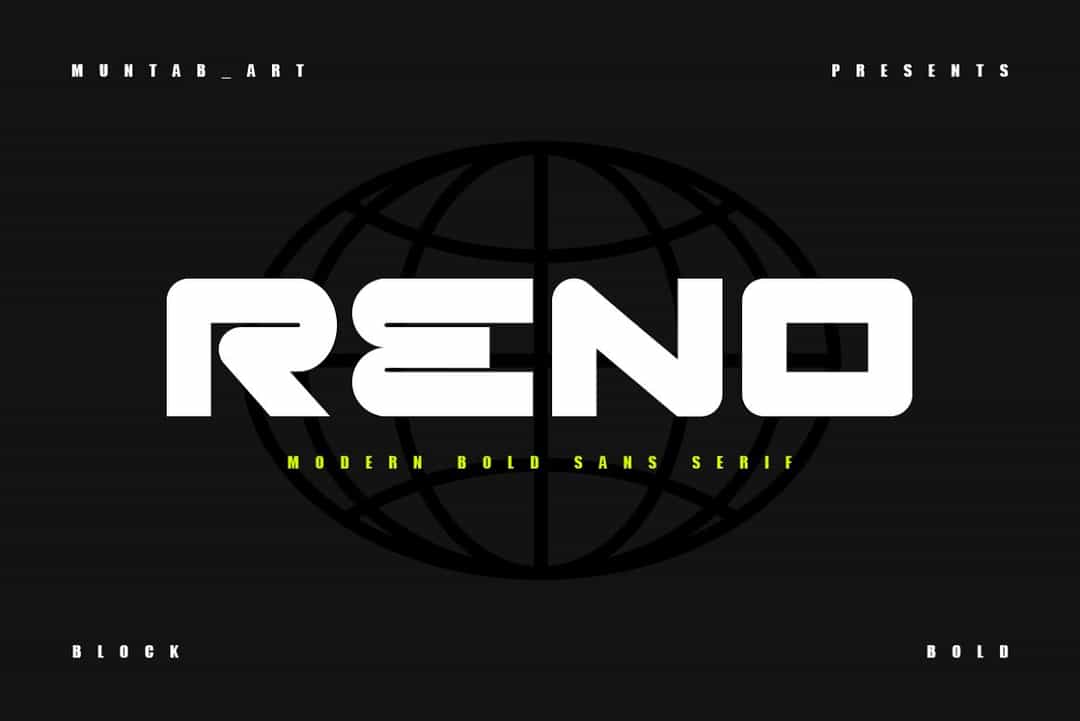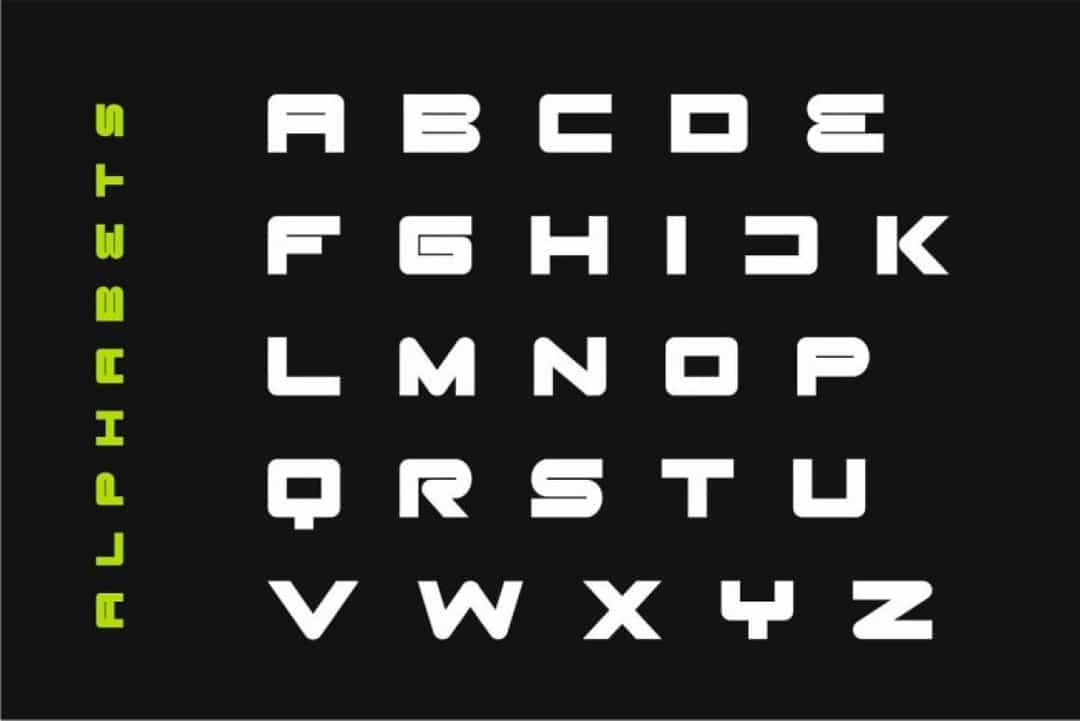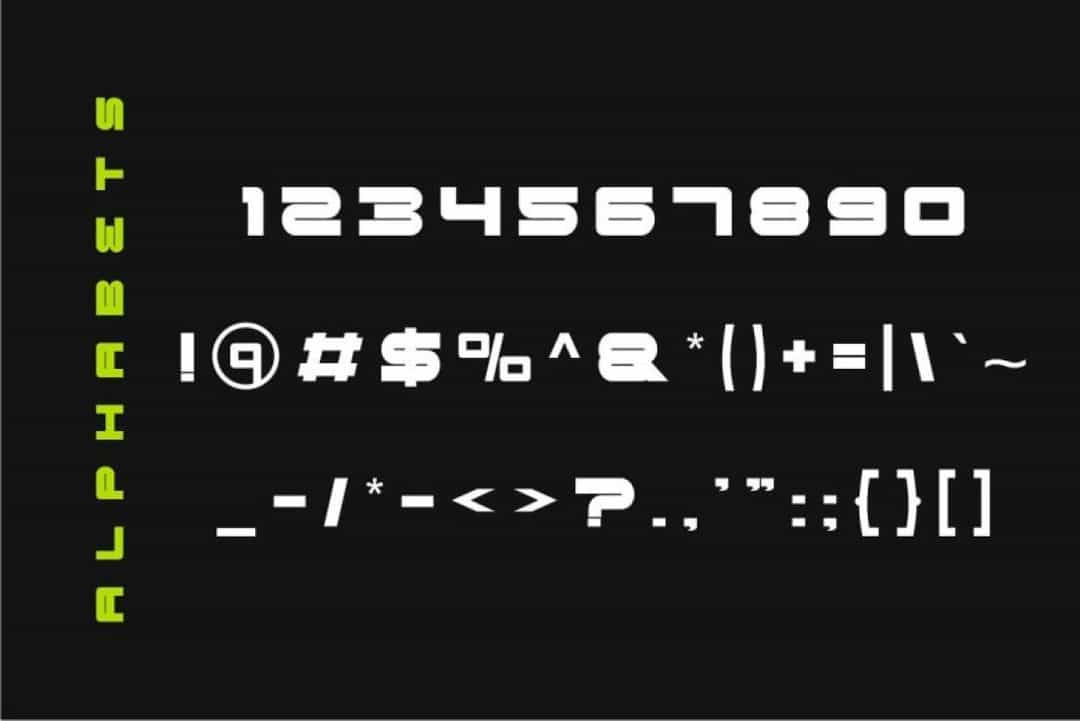
Reno Bold Sans fonts consist of uppercase numerals and letters as well as an extensive range of punctuation marks. Featuring Sans-Serif style fonts in modern design, Reno Bold Sans is suitable for posters branding projects, web designs illustrations badges and many other projects.